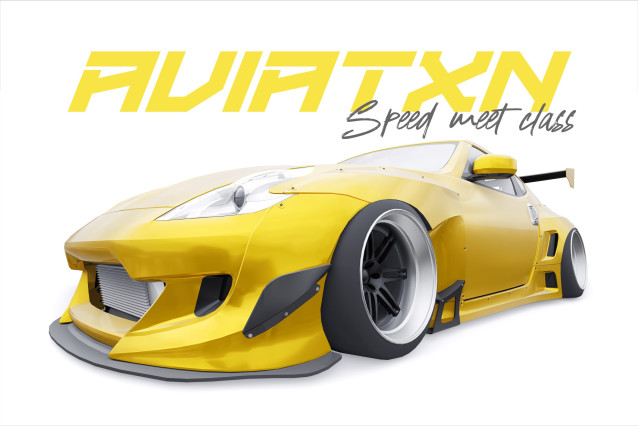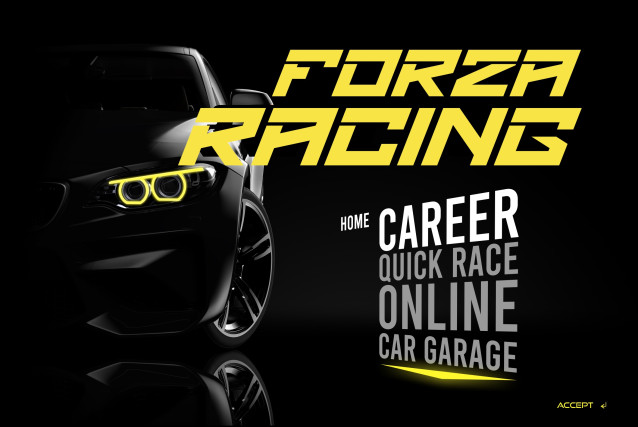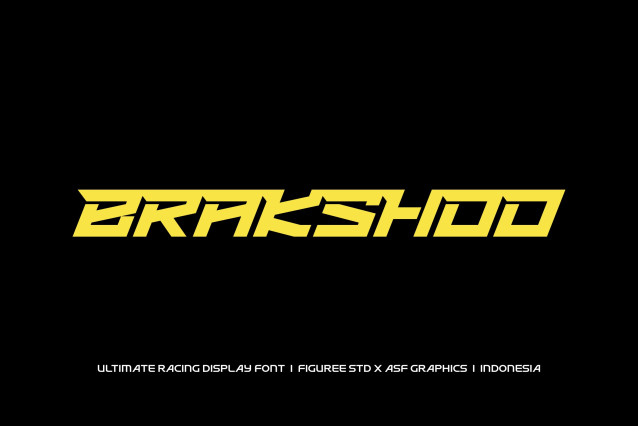
Brakshoo Font
Brakshoo Font – When your design needs to feel fast, aggressive, and cutting-edge, Brakshoo steps in. This ultimate racing display font is engineered with kinetic energy and precision. Featuring dynamic uppercase, lowercase, and numeric characters, Brakshoo delivers unparalleled versatility for any high-impact layout. Whether you’re building automotive branding, game titles, event banners, or sports graphics, this racing font adds velocity, drama, and high-style punch.
Built with sleek modern forms, Brakshoo channels the excitement of rubber burning and engines revving. Designed for maximum title readability at large scale, yet elegant in its lowercase forms, this is a racing display font that can lead both headline and subtext.